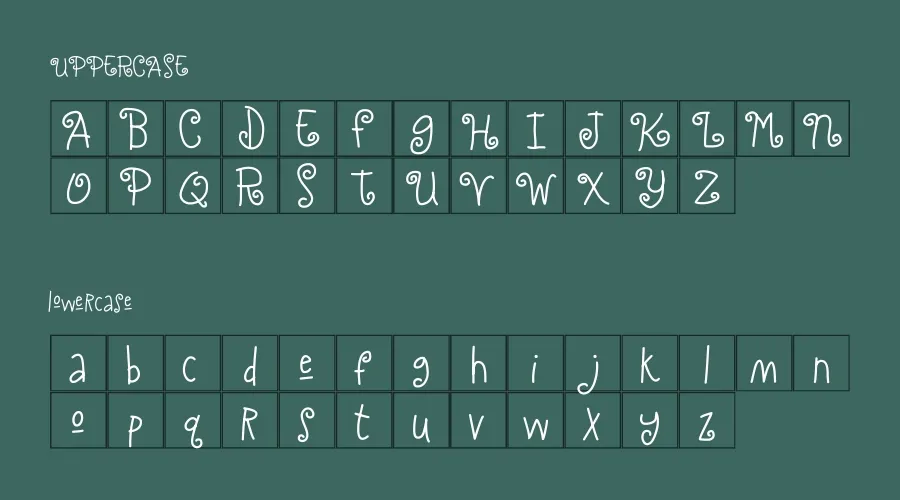
Scrap Silly Font
About Scrap Silly Font
Now, going to introduce to you the Scrap silly font that we are providing a free version. This stunning typeface was created by Marcus Sterz and issued through FaceType with unique and stylish structures. It looks like a fancy texture family and is perfect for various procedures.